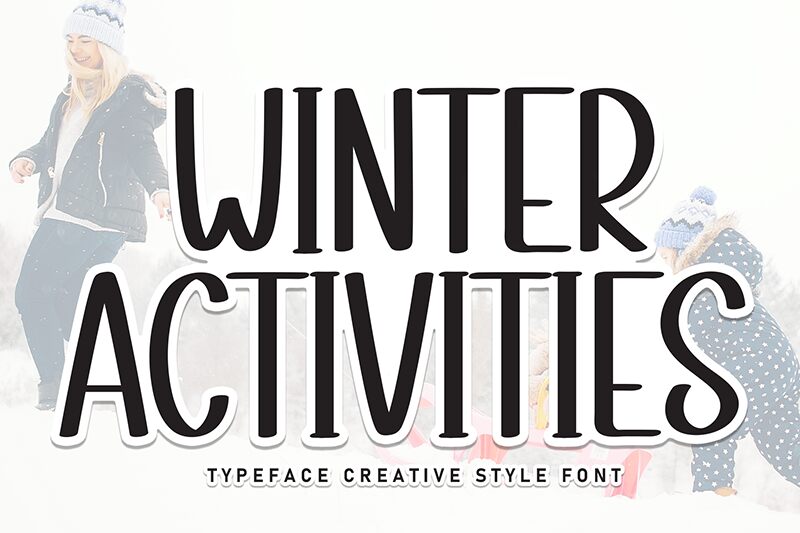
Winter Activities font is a free playful script typeface designed by Scratchones. The alphabet and the few available additional characters presented with it are round, friendly, and approachable. Its casual and inviting look, along with a minimal number of imperfect letters, gives this handwriting font its unique charm. The adventurous sought-after feeling is what makes it neat and interesting, thus perfect for a large number of contemporary applications.
Get your fair share of the script’s natural joy in event posters, invitation cards, or brochures. Its hand-drawn style makes it ideal for children’s books or products. You can try it in your branding, packaging, school, and personal projects that seek a warm and energetic vibe. Enjoy it in bright colors, along with a few icon doodles, for maximum effect.